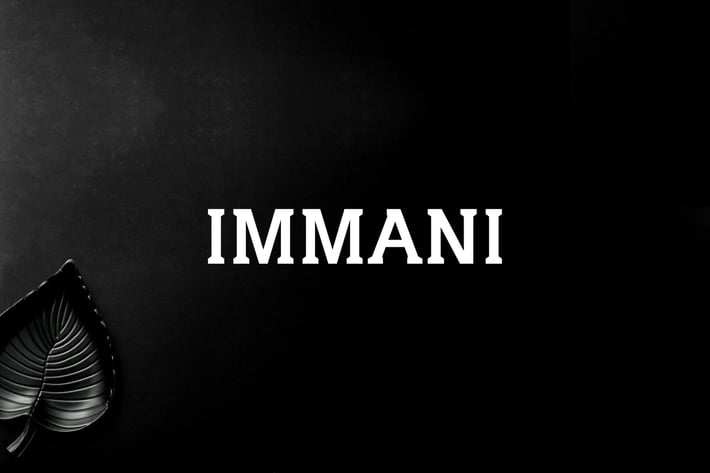
Immani Serif Font Family Pack
Immani Serif 2 Font Family Pack features unique and modern serif look and feel. Perfect for gorgeous logos, titles, web layouts and branding. It looks gorgeous in all caps with a wide-set spacing if you want to try a classy look, or beautiful on its own in capital and lowercase letters for something completely timeless.
Immani Font Features:
Uppercase Multilingual Letters
Lowercase Multilingual Letters
Numbers & Punctuation
Non English Characters ( Latin Supplement + Latin Extended A )